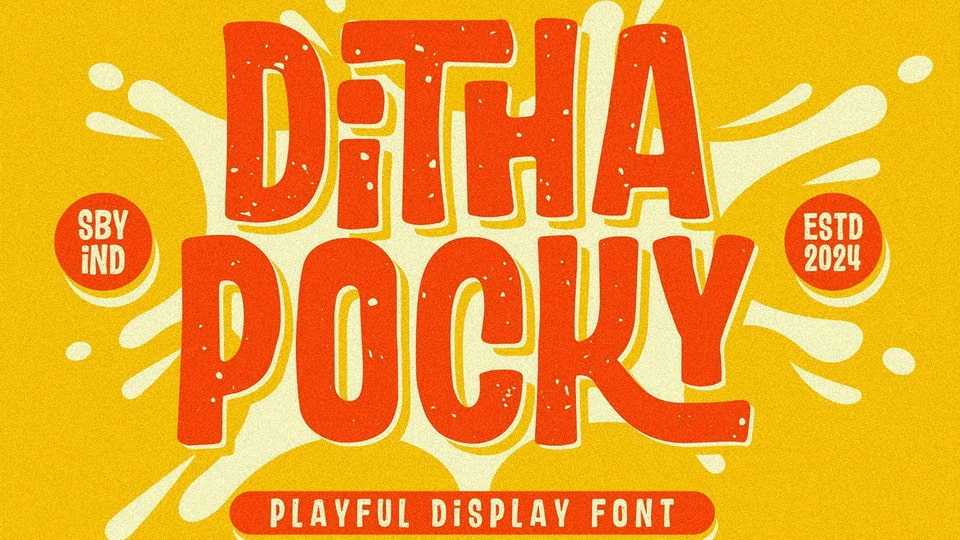
Download Ditha Pocky font, a playful display typeface that combines modern, playful, and formal style together. It contains so many alternates and ligatures that you can use it for more fun on your projects.